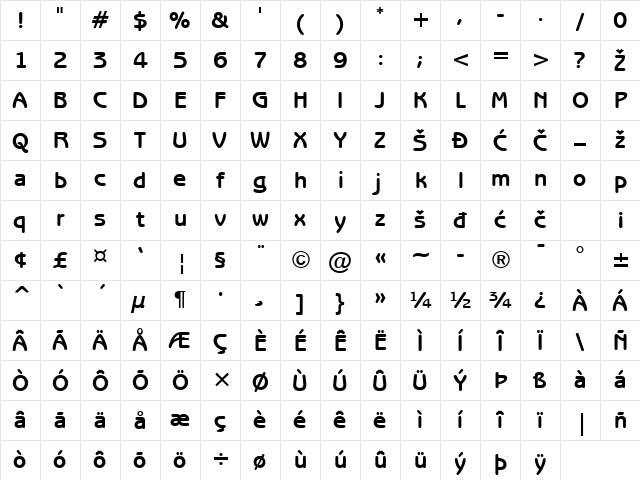
Complete BangkokGothic Bold glyph index. Displaying only characters natively supported by BangkokGothic Bold font.
BangkokGothic takes a clean, functional approach - its unadorned letterforms prioritise legibility and work reliably across screen and print environments. Its bold stroke weight gives it real presence on the page.
Font Pairing: Use BangkokGothic for headlines alongside a lighter-weight sans or serif for body copy to establish clear visual hierarchy.
Pro Tip: Use BangkokGothic for UI labels, navigation, and short-form body copy where clean legibility is the priority.